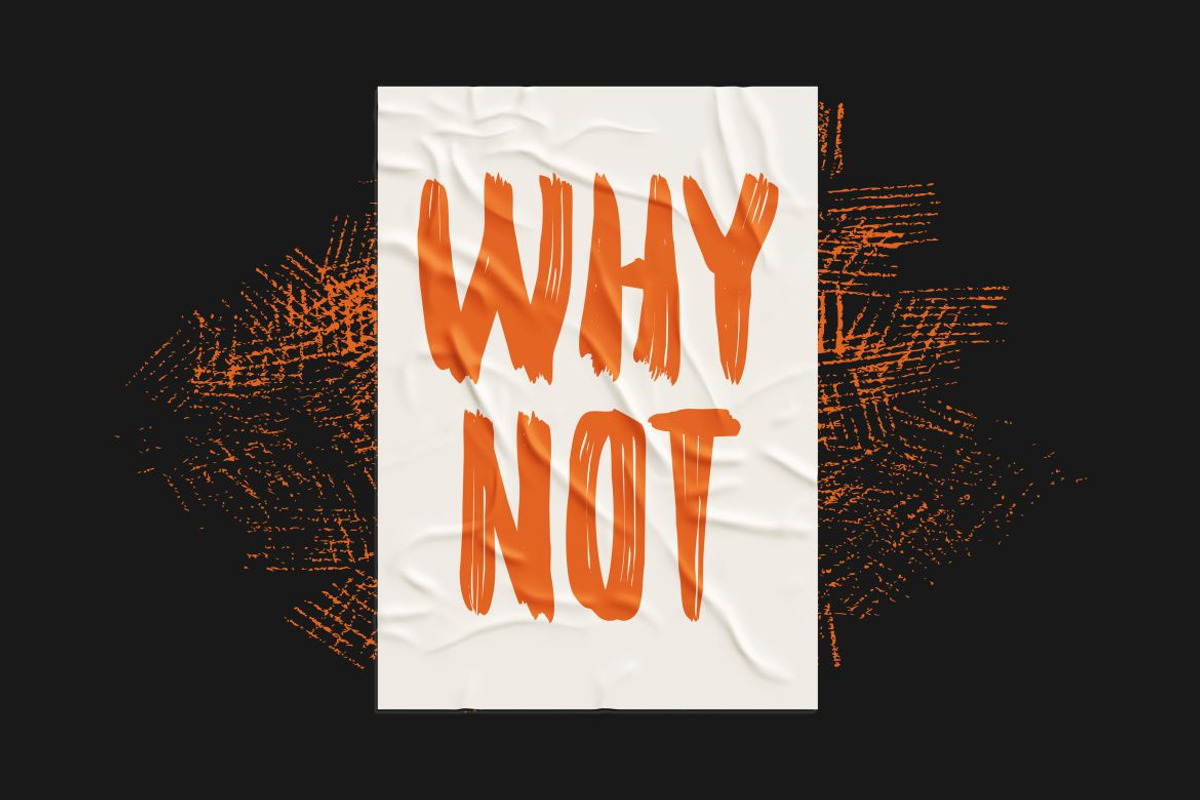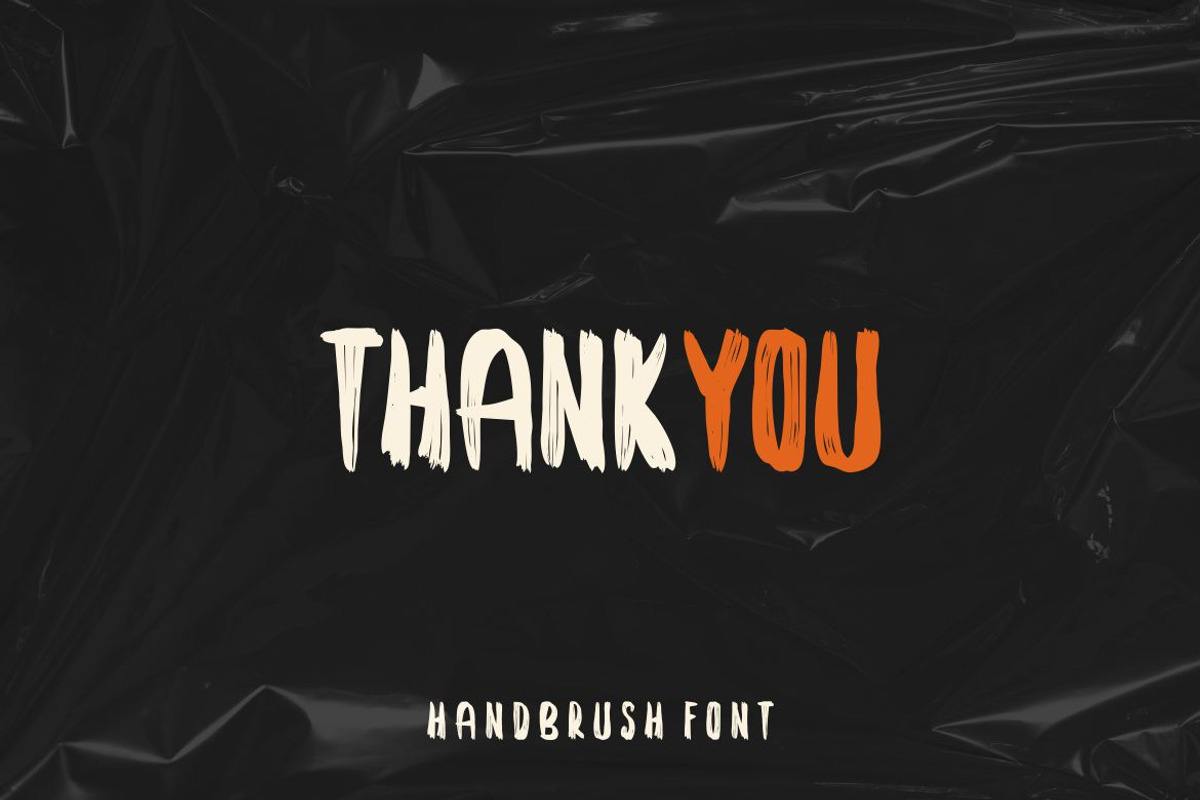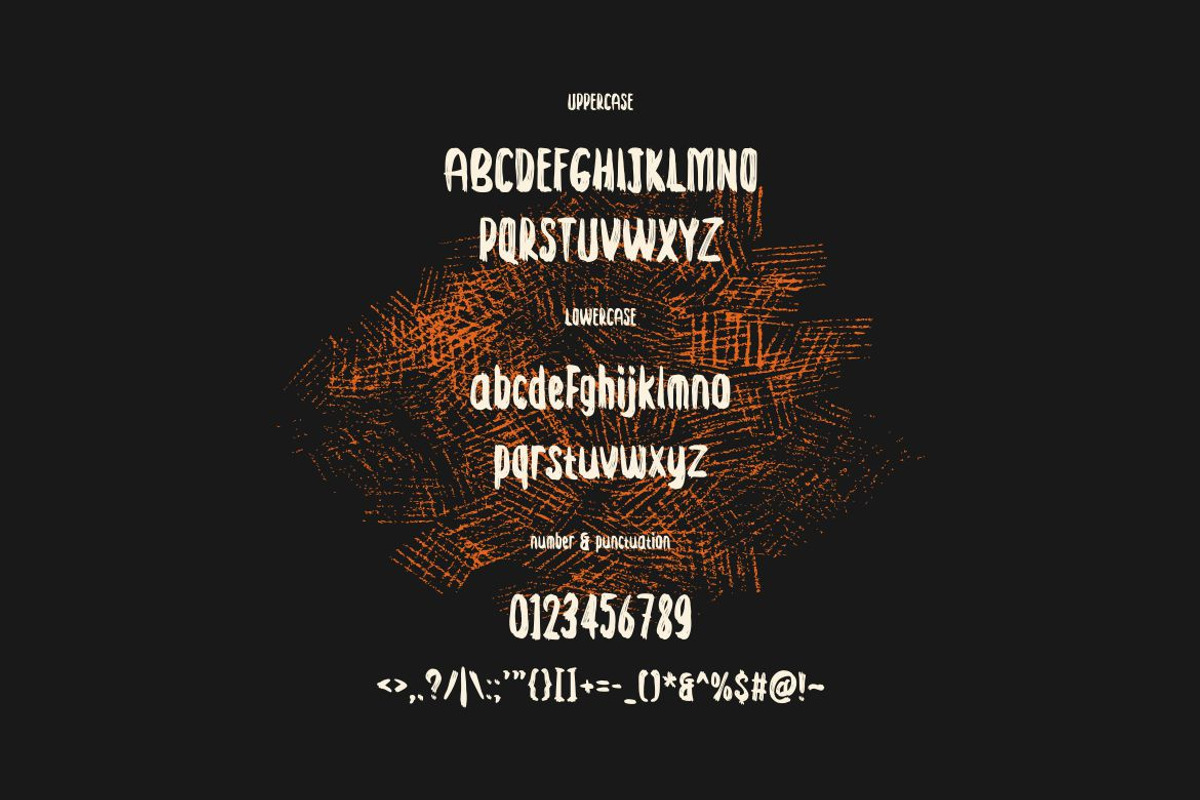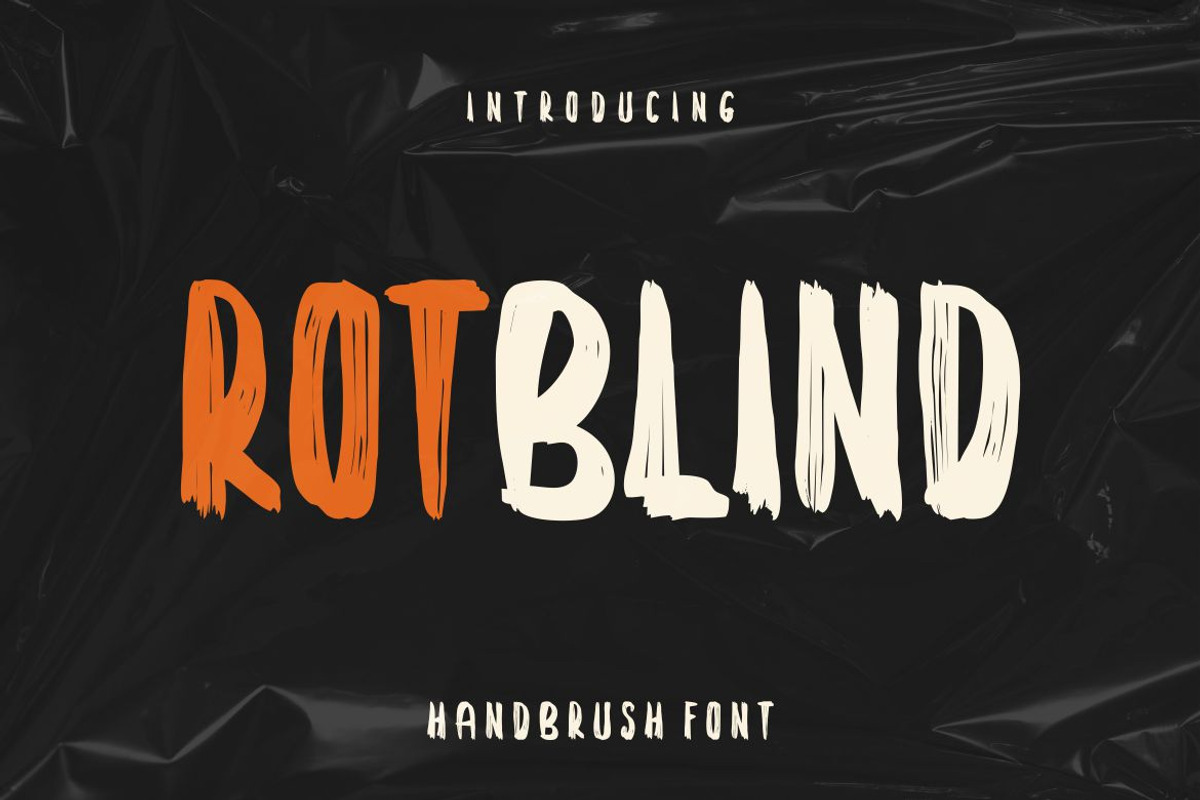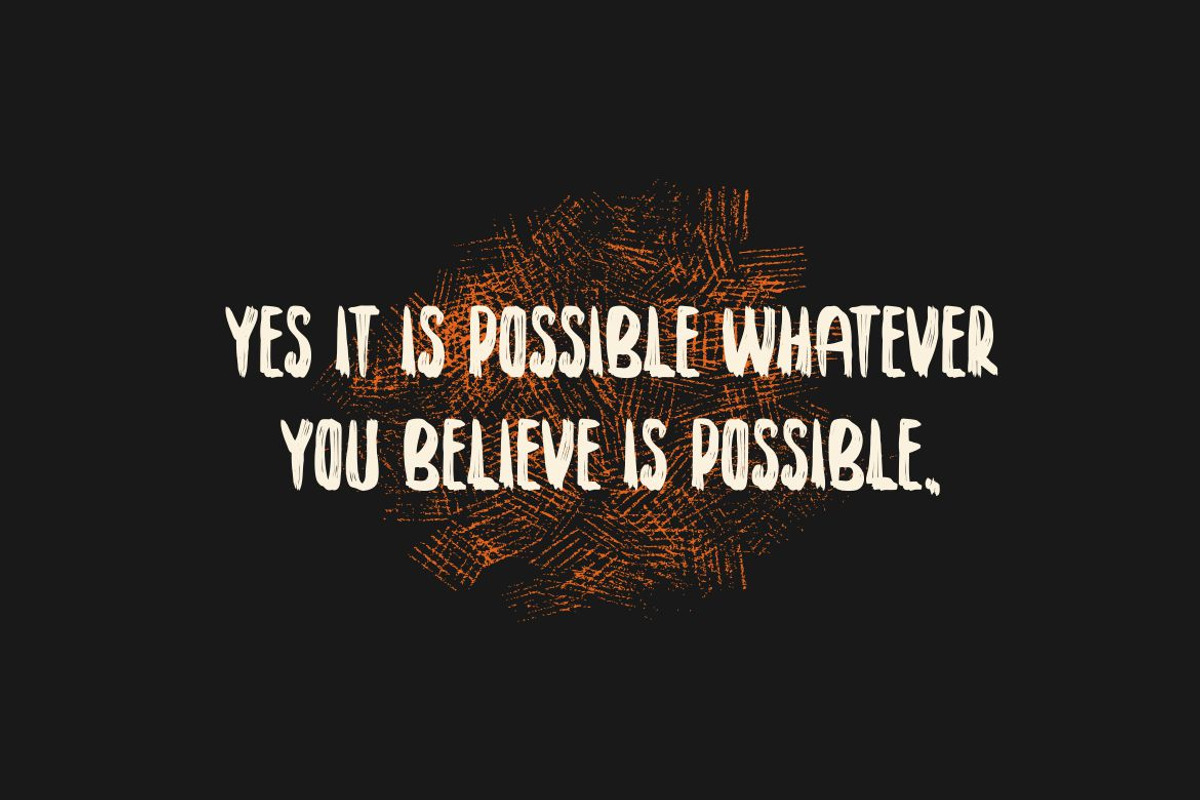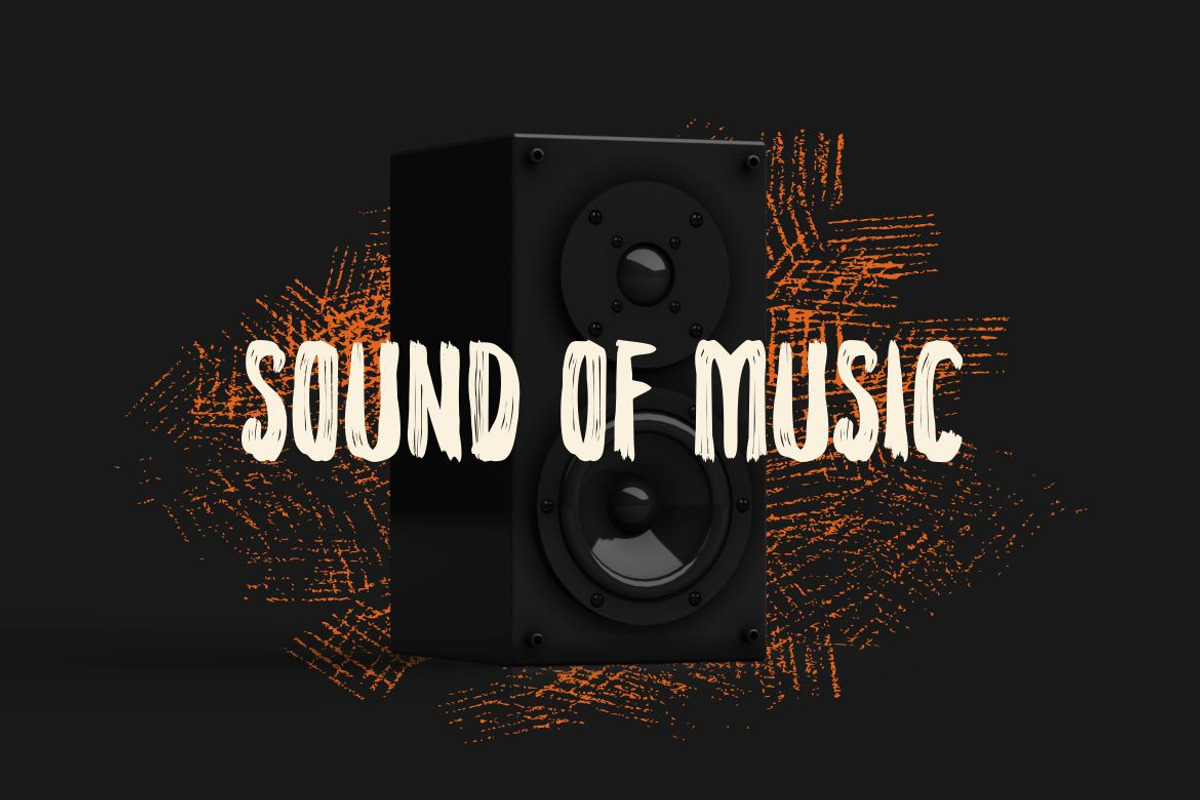
Rotblind - Handbrush Font
Introducing Rotblind , a cool and elegant Handbrushed Font. Elegant font feel. This font gives you a beautiful and modern atmosphere. suitable for posters, book covers, cards, merchandise, etc.